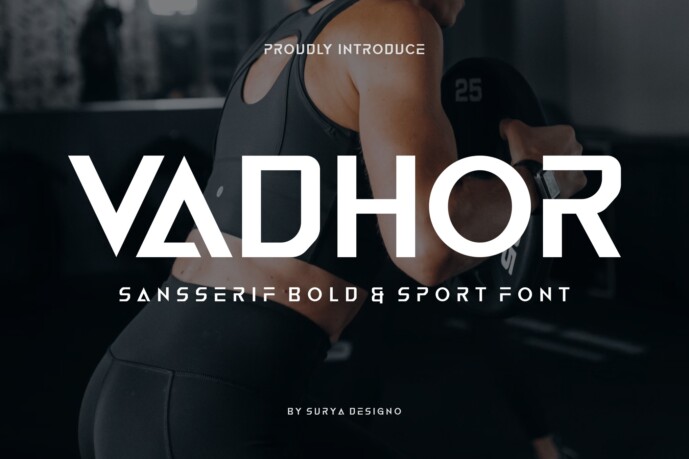
Vadhor Font
Designer: suryadesign0
Introducing our new product Vadhor Font – Modern Font
Vadhor Font – Modern Font is a bold and authentic display font. The font is suitable for any branding project like logo, t-shirt printing, esport, and many more. outstanding in a wide range of contexts.